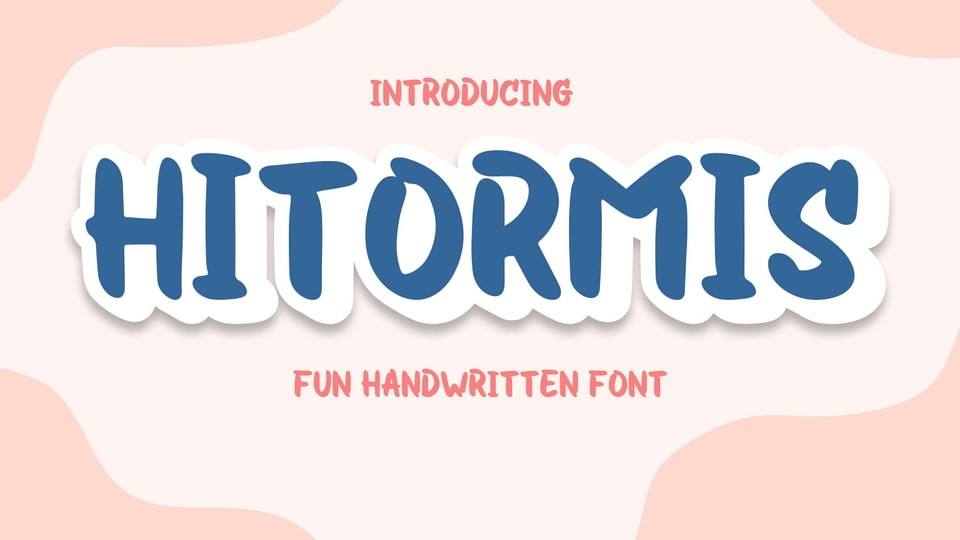
Download Hitormis font, a simple and fun handcrafted typeface that was created to impress your audience. Every letter has a unique and organic touch, which will make your design come alive.